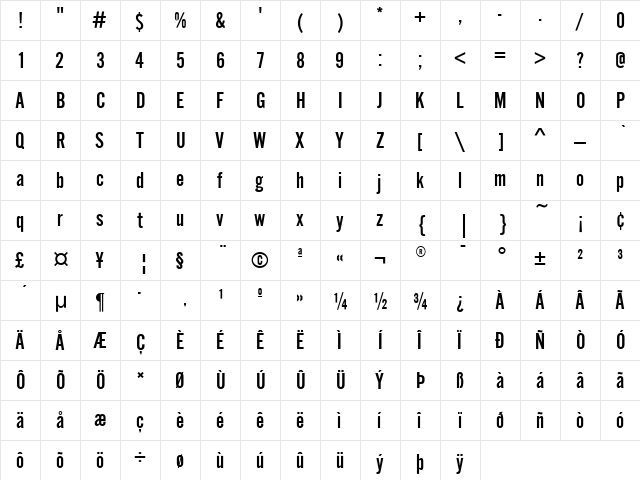
AlternateGothicEF NoTwo Regular
Design Context for AlternateGothicEF NoTwo Typeface
AlternateGothicEF NoTwo takes a clean, functional approach — its unadorned letterforms prioritise legibility and work reliably across screen and print environments.
Font Pairing: Works well alongside a characterful serif or display font that can carry the expressive load while AlternateGothicEF NoTwo handles the functional copy.
Pro Tip: Pair AlternateGothicEF NoTwo with a display or serif font for headlines — its neutral character makes it an excellent supporting player in complex typographic systems.